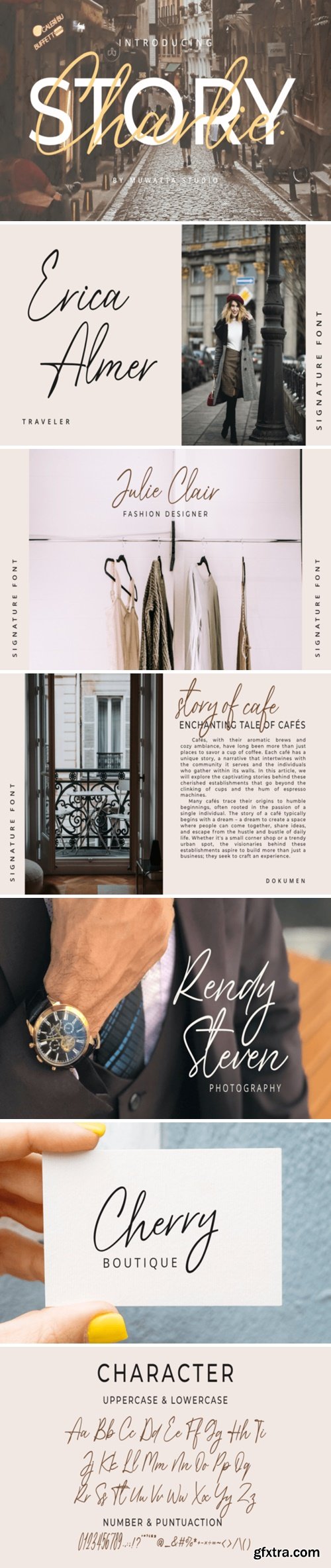
Charlie Font
“Story of Charlie” font script encapsulates the essence of handwritten elegance and charm. This script font exudes a timeless and sophisticated vibe, reminiscent of classic penmanship with a modern twist. The fluid strokes and graceful curves of each letter form a harmonious dance on the digital canvas, creating an aesthetic that is both visually appealing and emotionally resonant.